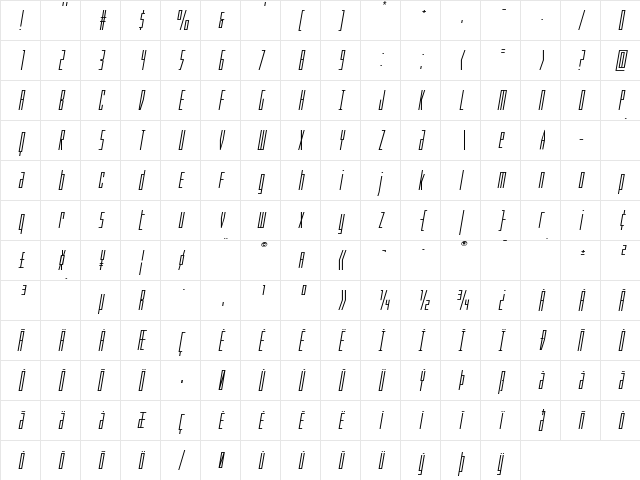
Phantacon Expanded Italic Expanded Italic
Design Context for Phantacon Expanded Italic Typeface
Phantacon Expanded Italic offers clean, dependable letterforms without strong stylistic allegiance, making it a practical choice for designers who need flexibility. The dynamic lean of this cut emphasises speed and emphasis in any layout.
Pro Tip: Try Phantacon Expanded Italic for annotation and caption copy alongside an upright companion — the contrast in angle creates a dynamic but ordered typographic system.